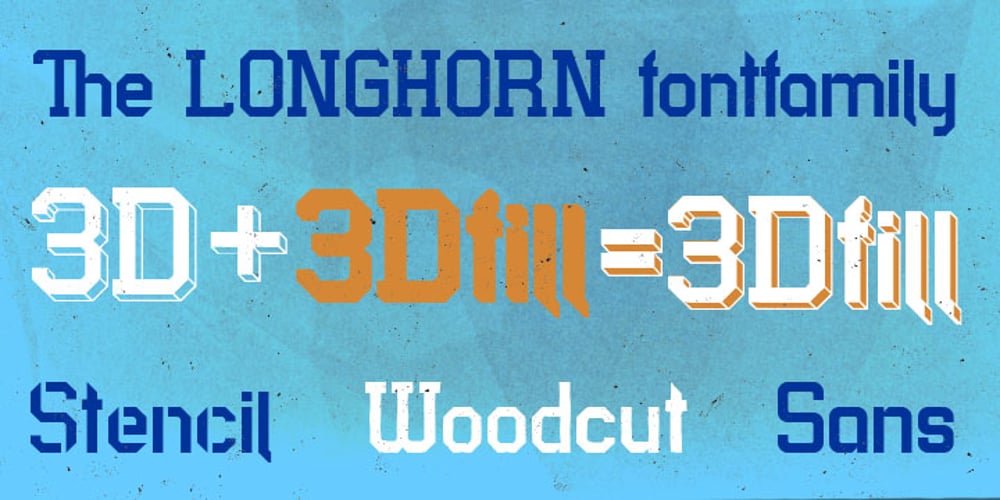
Longhorn Font Family was designed by Adam Bell and published by Belldorado. Longhorn contains 6 styles and family package options. I saw a cool UT-Ligature on an old (maybe 70’s or 80’s) Texas Longhorns fan-shirt – it was in 3D and I wanted something like that with my own initials A and B to print it on a baseball hat. I started drawing it and when I was finished, I thought it might be nice to do the same for my officemates. I needed another G, T and K. After finishing that I thought it might be cool to do this for other people as well. Since the source of all the 3D glyphs is found in the regular ones which get moved by a 45 degree angle and then connected with lines , I first draw all the uppercase regular glyphs. The thing that followed was kind of an addiction: after finishing the uppercase letters, I wanted to add lowercase letters, after finishing the 3D letters, I thought it would be nice to have a fill version to layer with the 3D letters. Having a rough, woodcut version of the regular style would be cool, too. And the font is also pretty much suited to make a stencil version. When all this was done, I was interested on how the font would look like without the serifs and curves instead of the 45 degree angles, so I did the Longhorn Sans. Good to use for all sports-related designs, especially retro-style soccer/football shirts. Uppercase characters can be combined to form ligatures or logotypes.